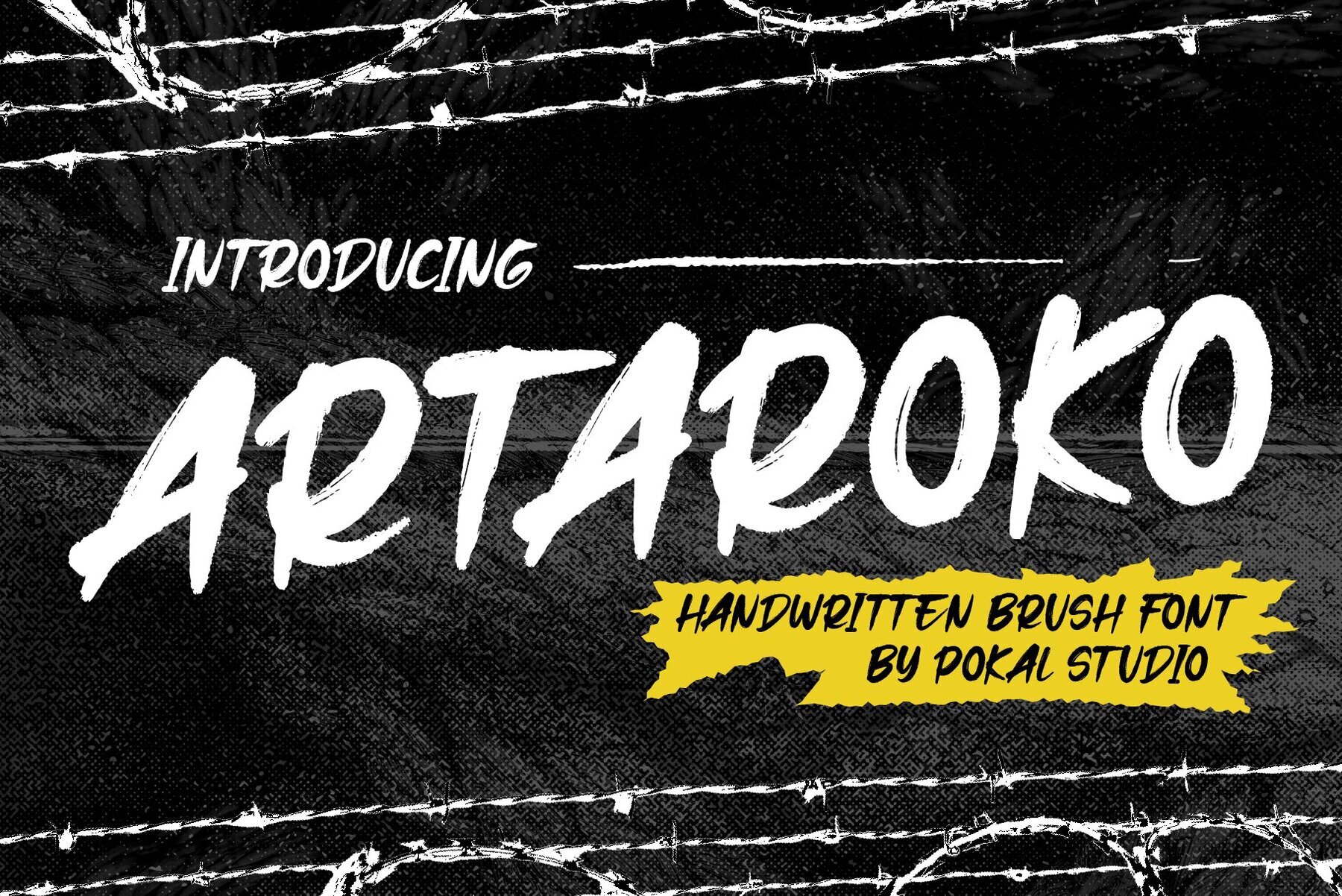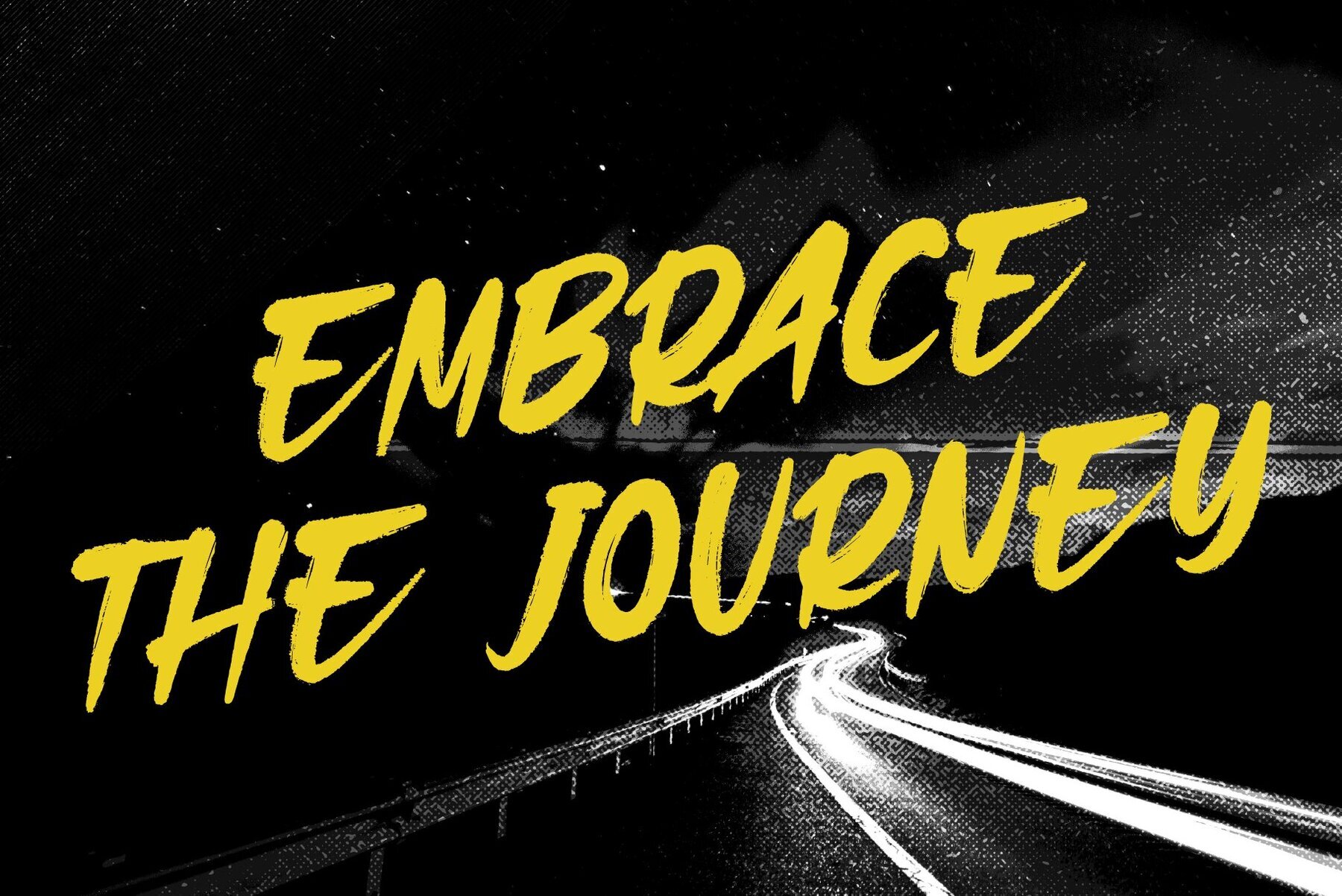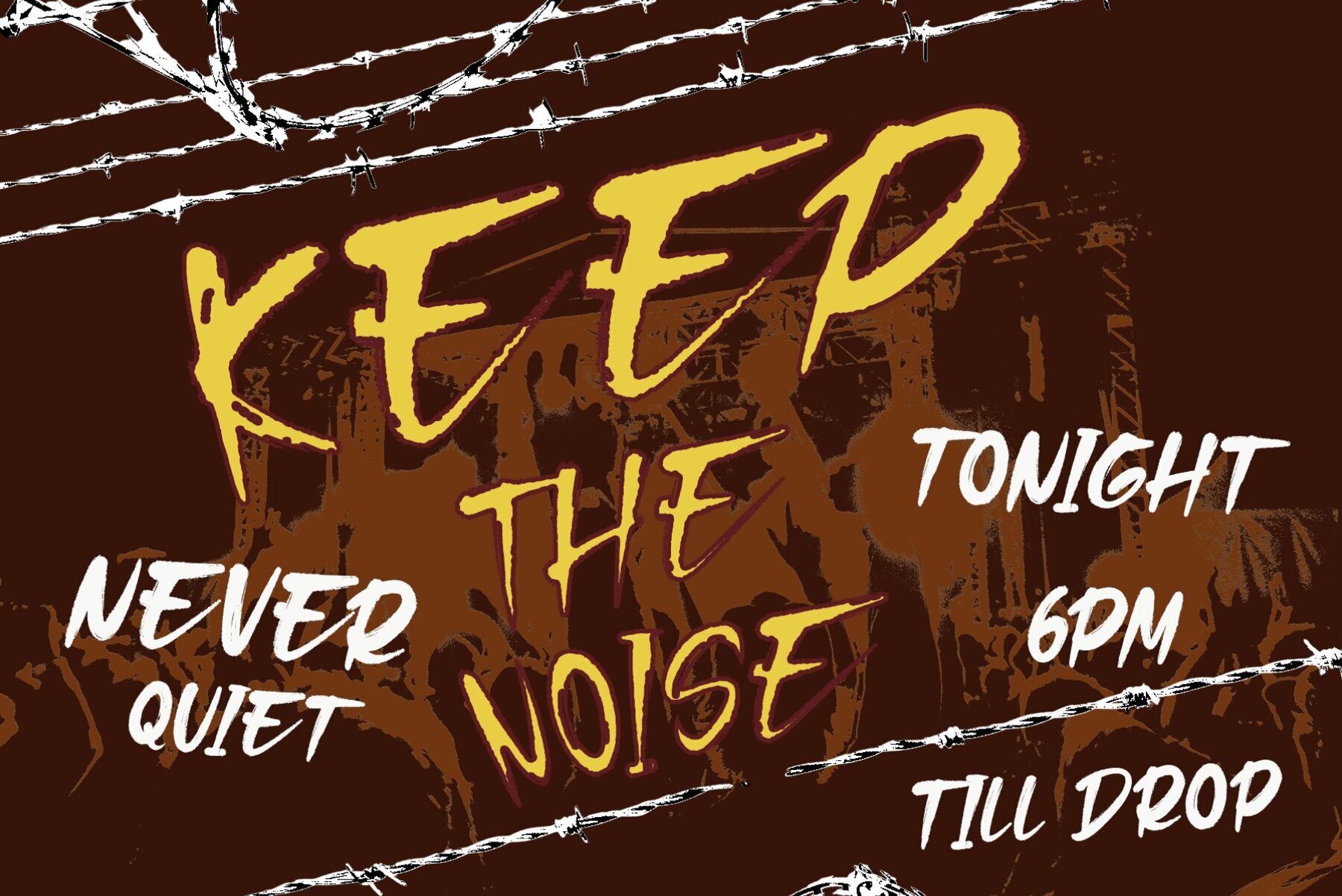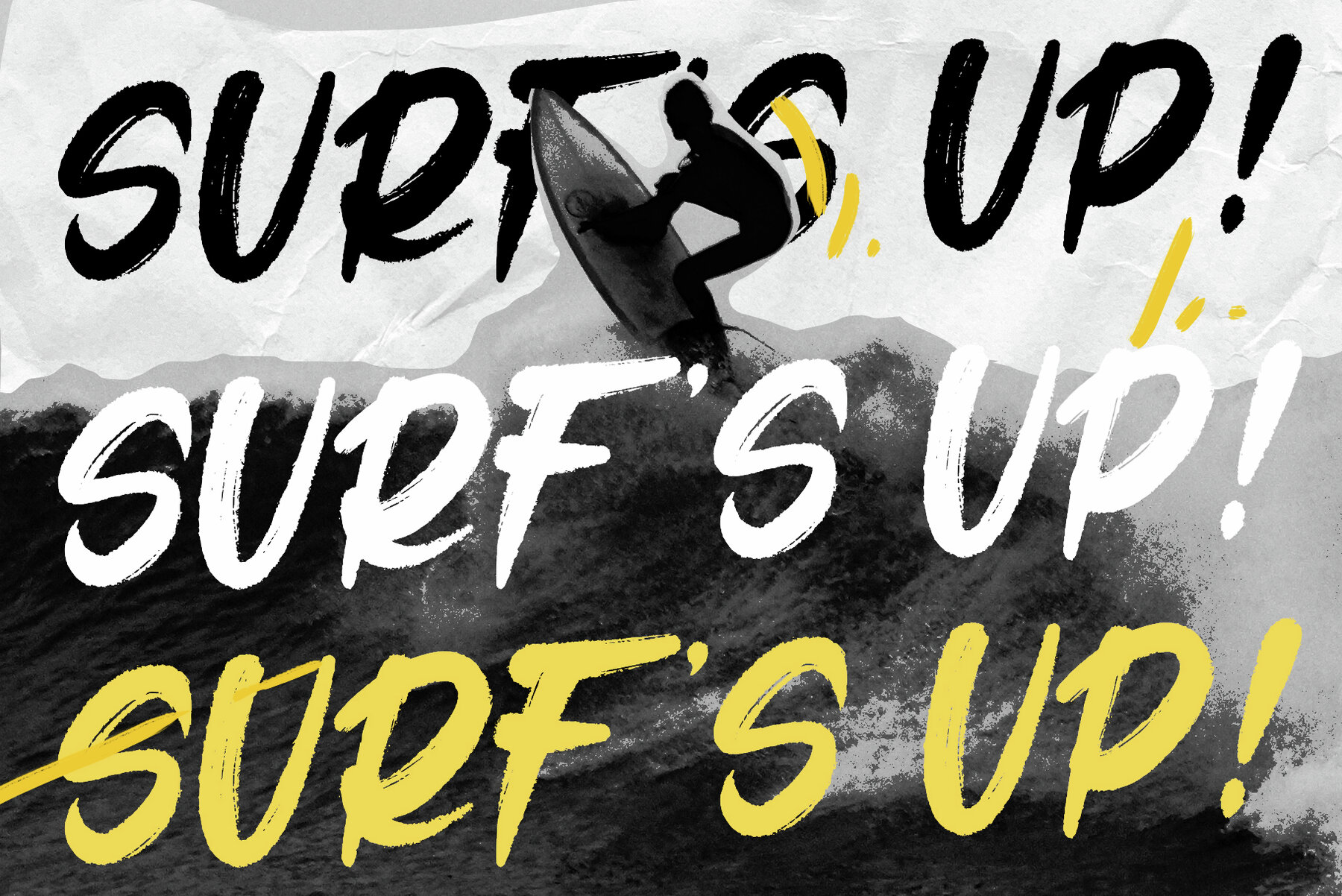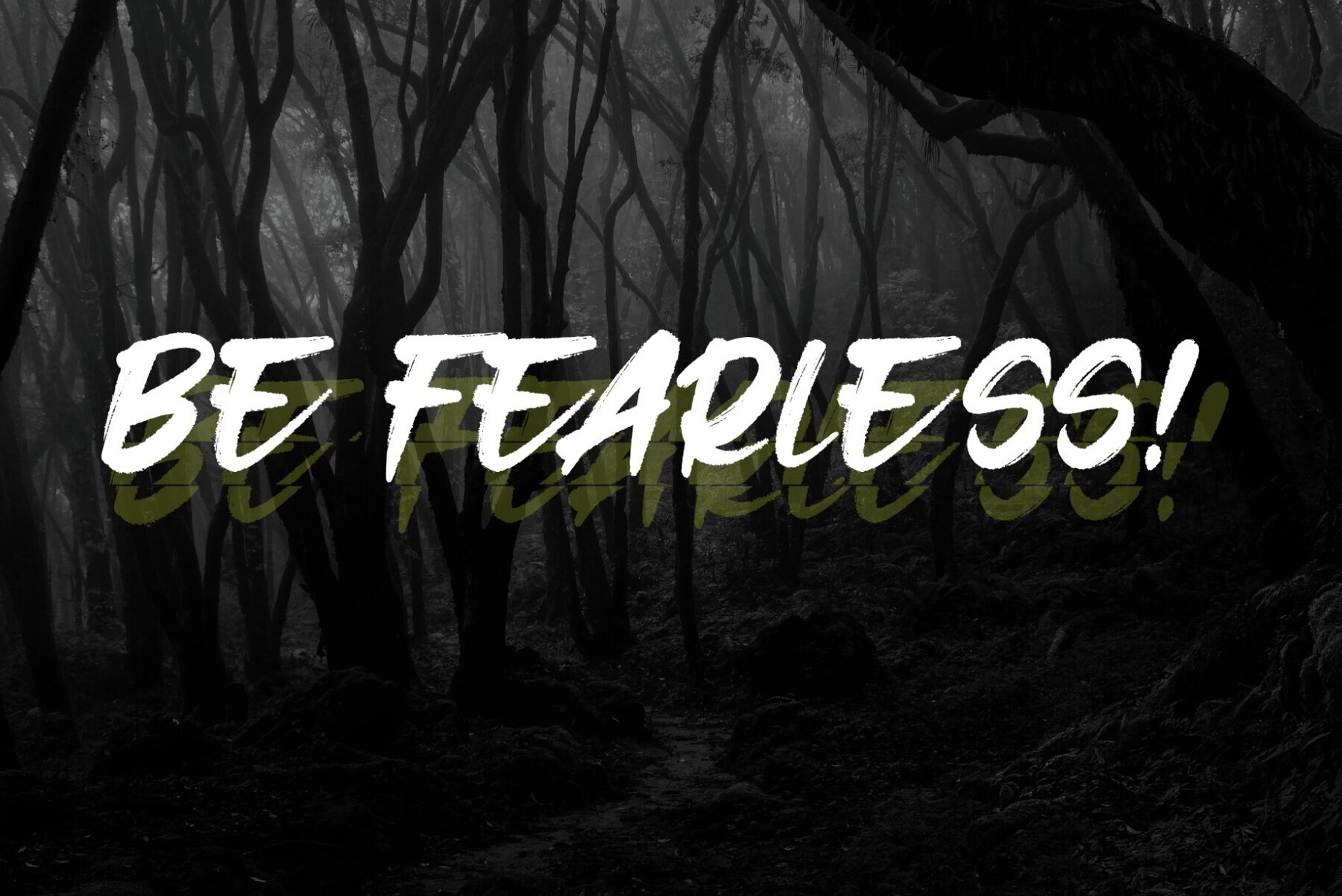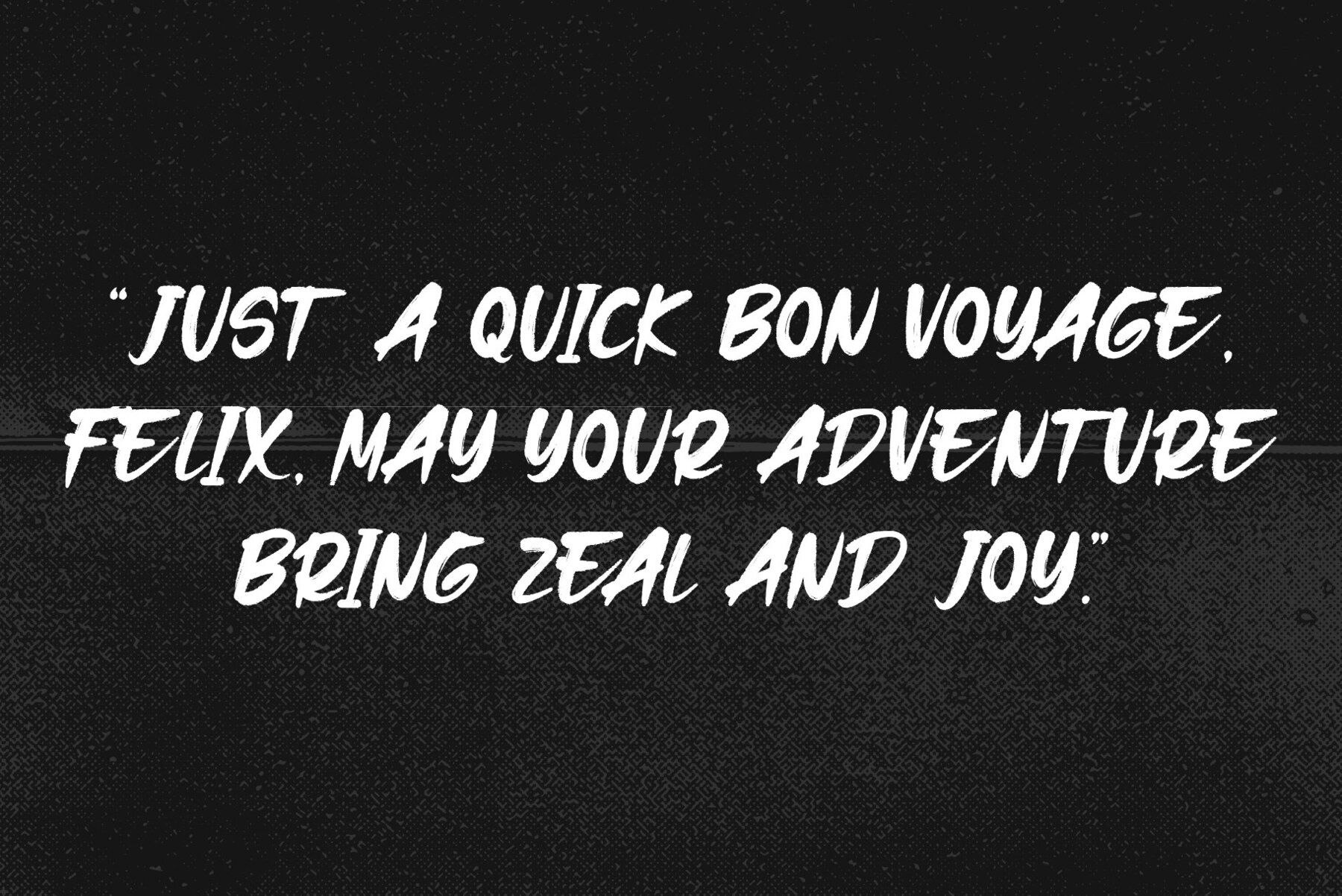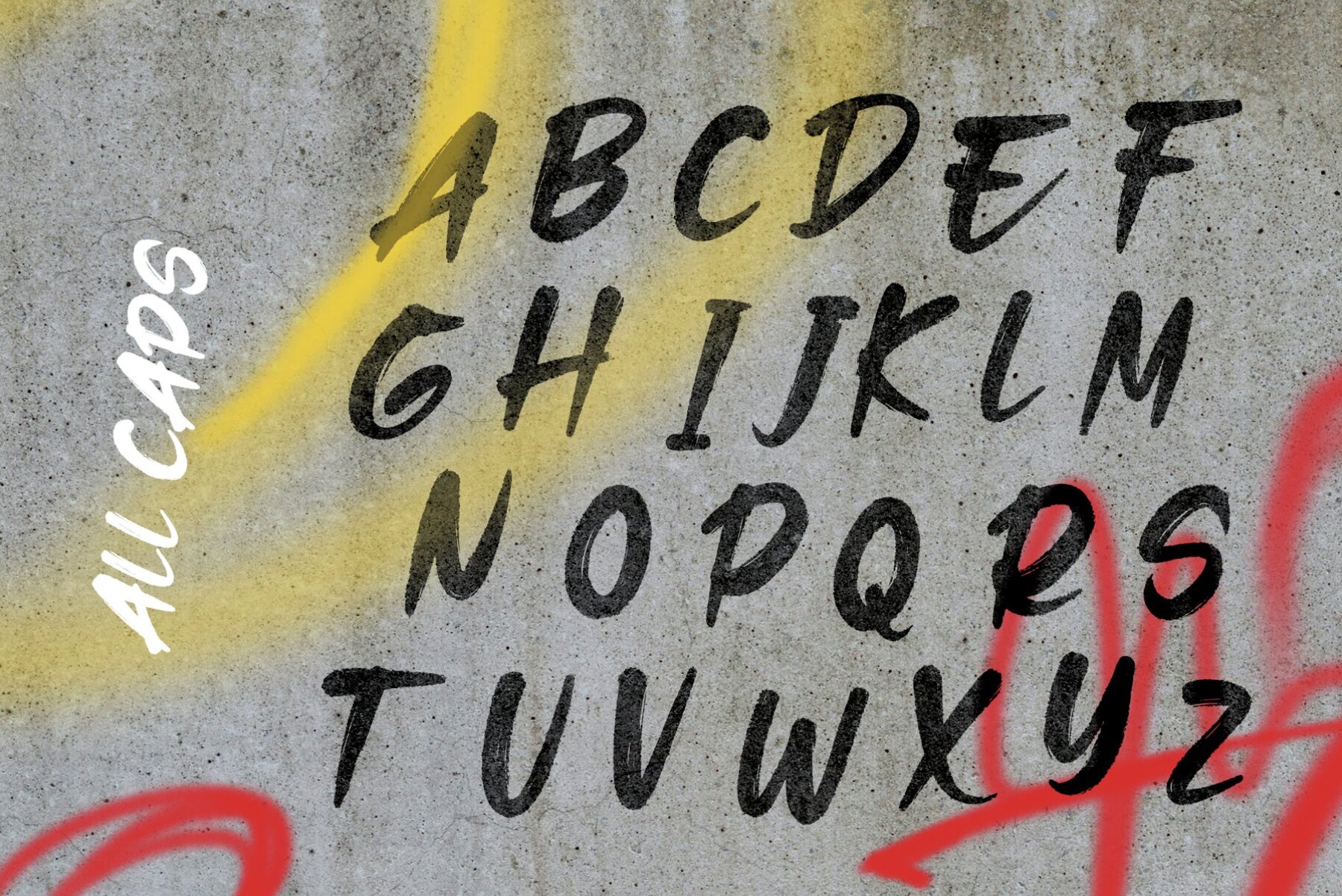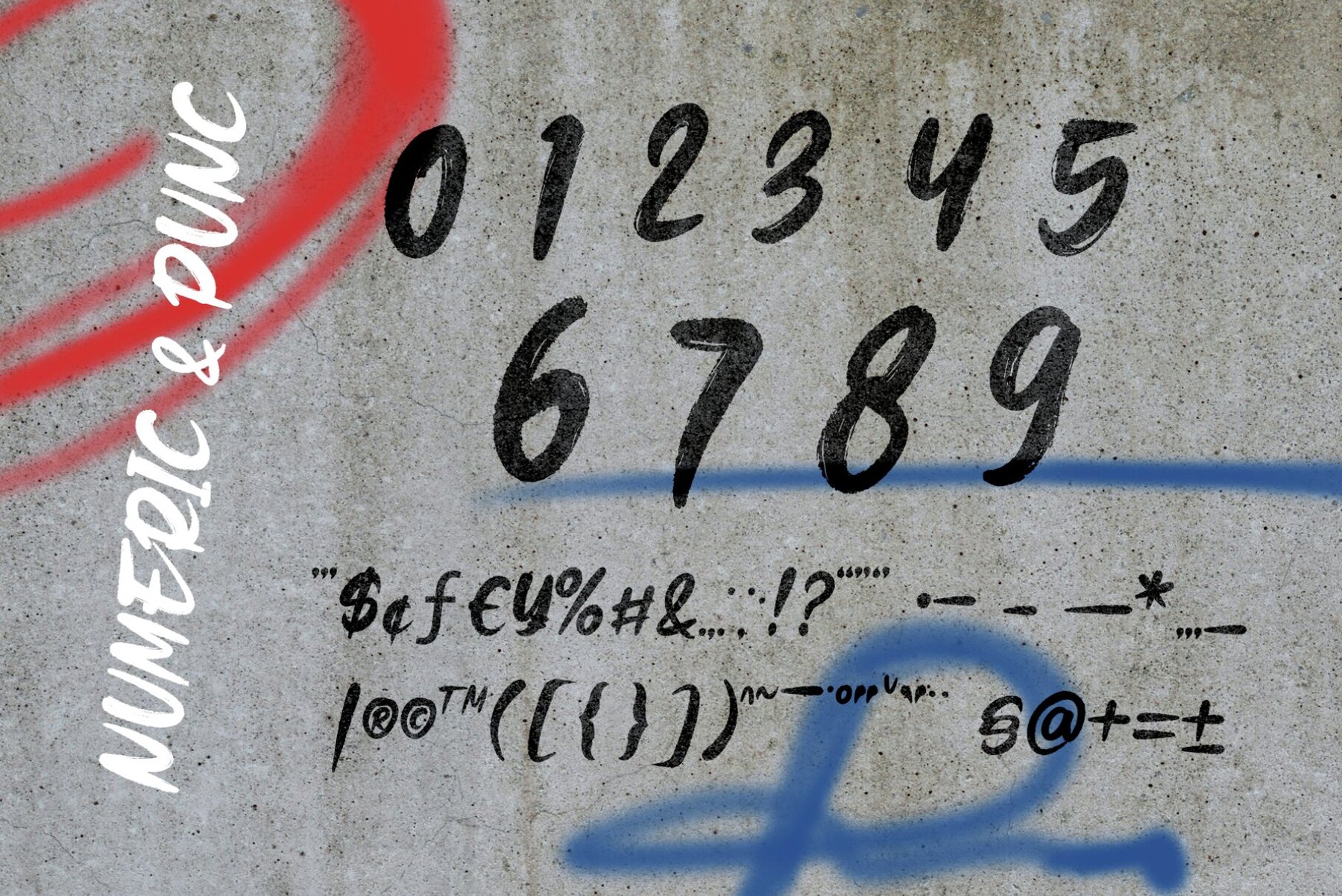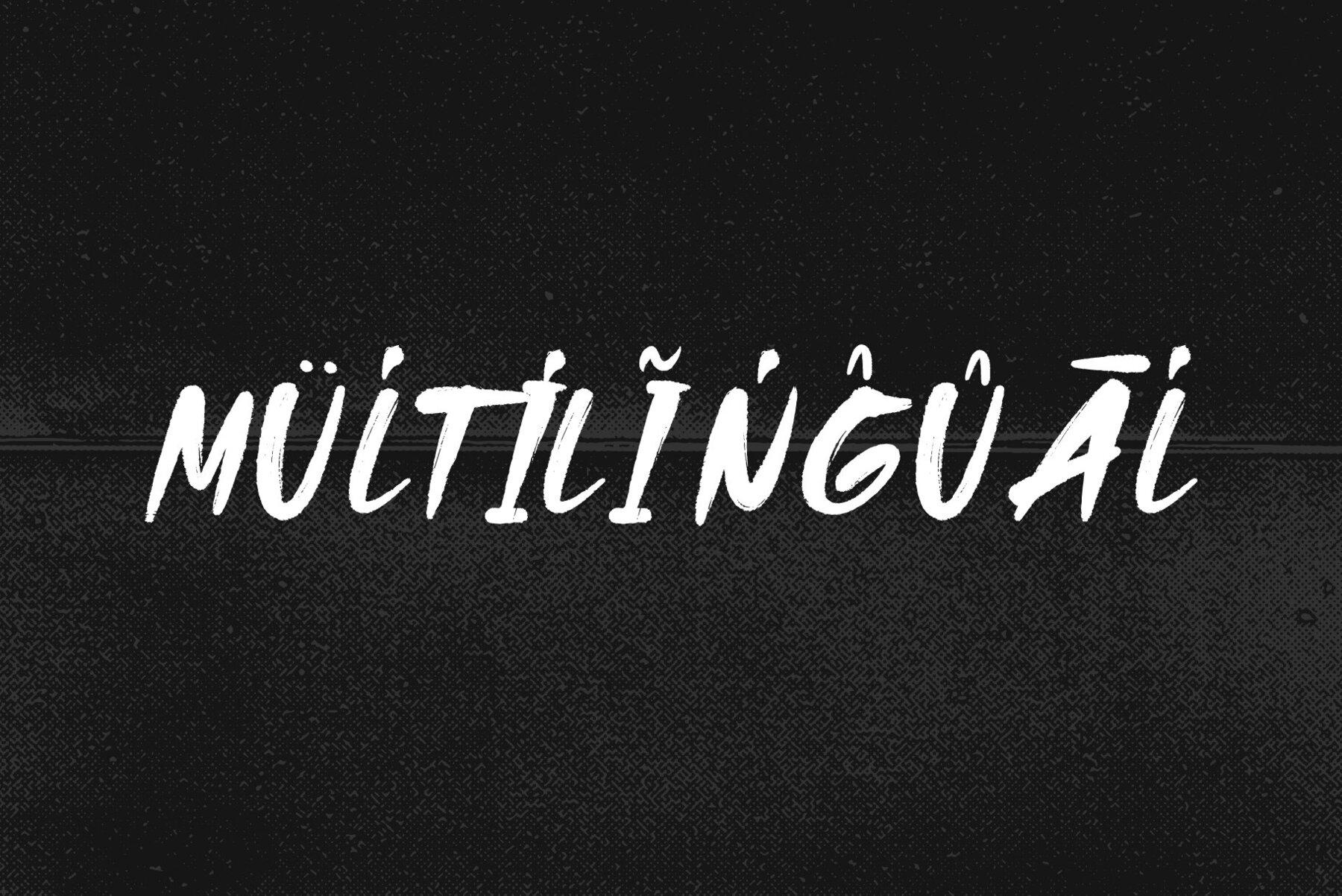
Artaroko Font
Artaroko Regular
Unleash the raw energy of urban culture with Artaroko, a bold handwritten brush font designed with authentic hand-painted textures. Inspired by street art, this grunge brush font infuses your projects with fearless expression and dynamic impact. Perfect for display purposes, it stands out with its all-caps style, making it ideal for attention-grabbing headlines, bold quotes, and statement branding. The rugged edges and textured nuances of Artaroko convey a genuine handcrafted feel, perfect for those seeking a street-style or graffiti-inspired font. Whether you're working on urban branding or crafting festival posters, this font adds a touch of boldness and authenticity.Artaroko Handwritten Brush Font